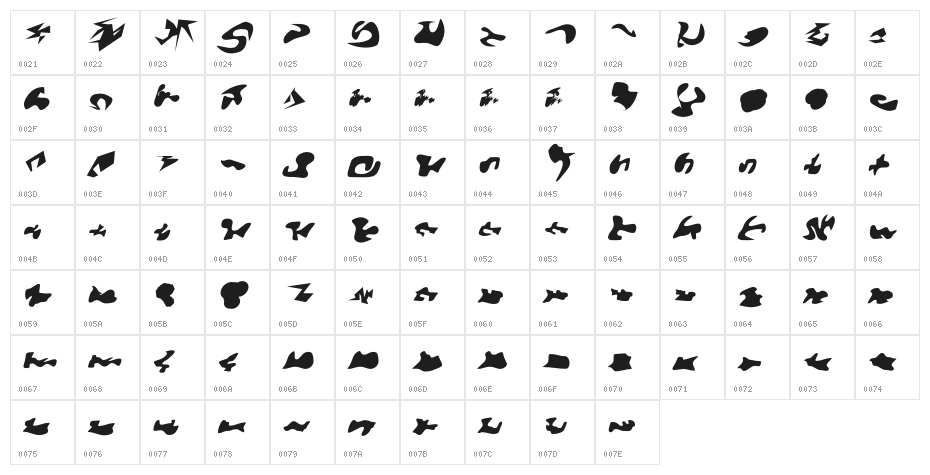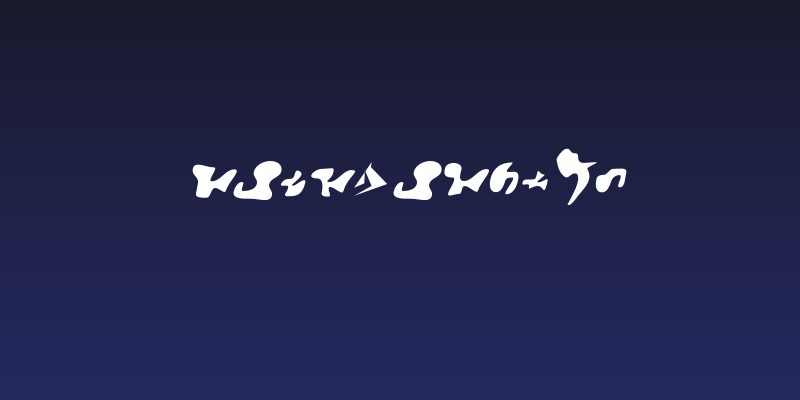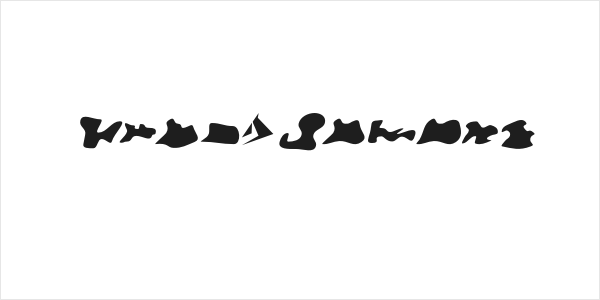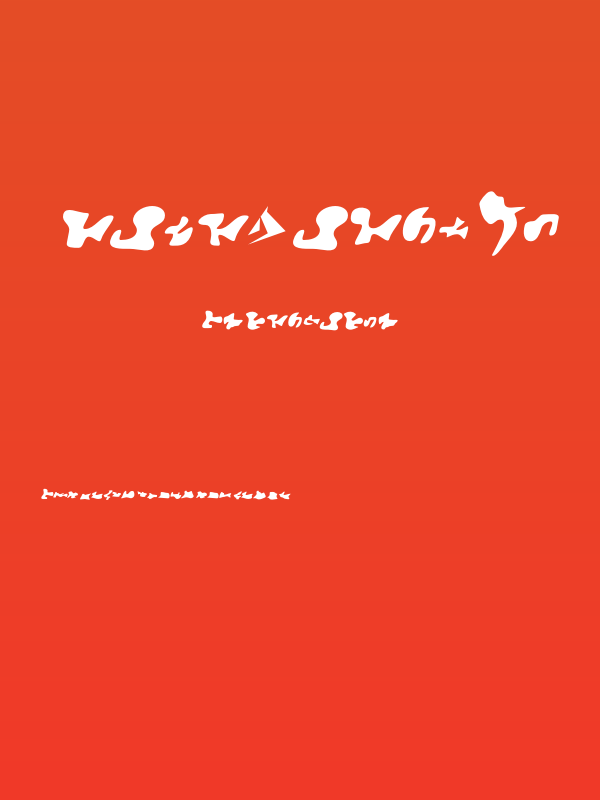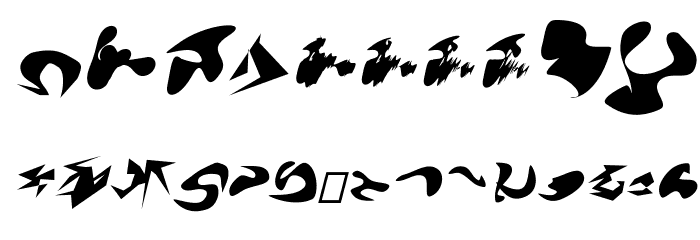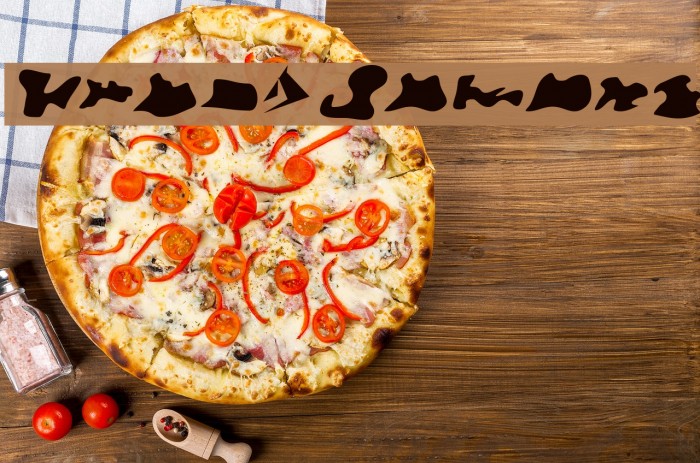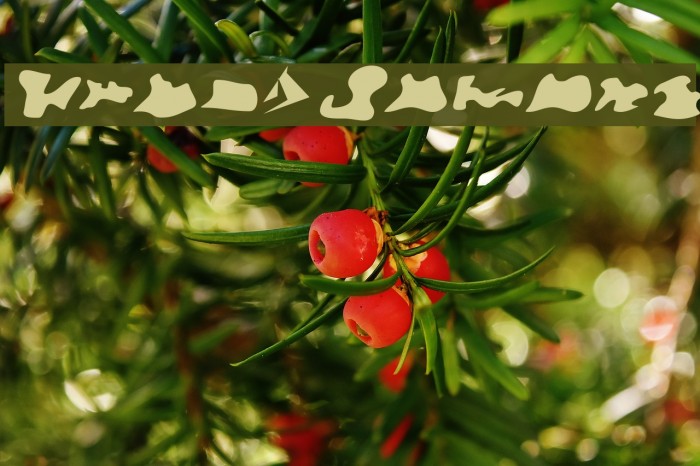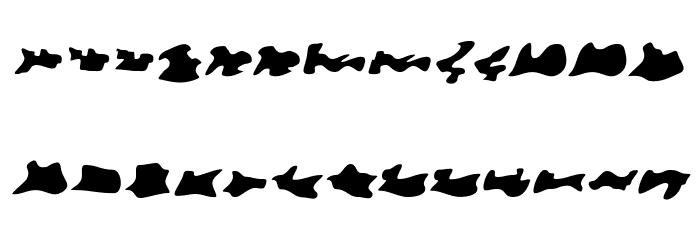
Camo3 Angled Font
Camo3 Angled Description
This font features a highly stylized and abstract design, with characters that appear to be inspired by organic and fluid shapes. The letters are bold and have a unique, artistic flair, making them stand out with their unconventional forms. The strokes are thick and vary in width, giving the font a dynamic and energetic appearance. The overall look is reminiscent of graffiti or street art, with a sense of movement and spontaneity. This font is not suitable for body text due to its complexity and decorative nature, but it can make a strong visual impact in headlines or artistic projects.
| Use Case | Headlines, Artistic projects, Logos |
| Proposed Projects | Ideal for artistic projects, street art designs, album covers, or any creative work that requires a bold and unconventional typeface. |